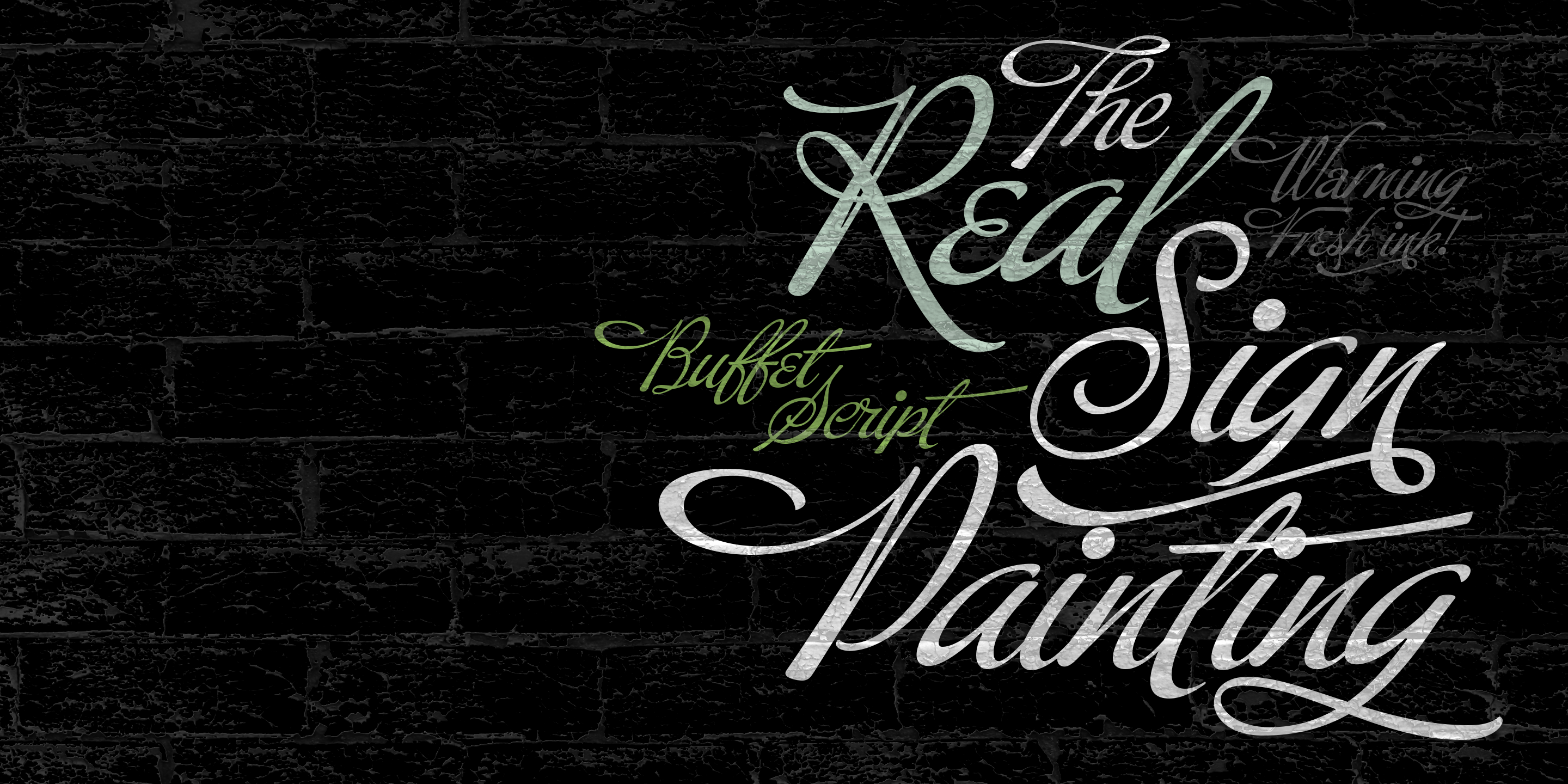
Buffet Script Font is perfect for elegant restaurant branding, gourmet food packaging, upscale catering services, fine dining menus, culinary event promotions, artisan food labels, sophisticated hospitality marketing, and premium dining establishment communications. This refined script typeface excels in applications requiring culinary elegance and gastronomic sophistication that captures the essence of fine dining experiences and gourmet food culture through graceful handwritten character.
What makes Buffet Script Font exciting is its sophisticated culinary charm that perfectly captures the elegance of fine dining and gourmet experiences through beautifully flowing letterforms. The font features graceful script construction with culinary refinement and elegant curves that instantly evokes feelings of sophistication, quality, and gastronomic excellence perfect for brands celebrating culinary artistry and fine dining traditions.
The Buffet Script Font family includes elegant script variations and decorative flourishes with culinary-inspired styling elements, offering designers comprehensive tools for creating sophisticated dining compositions. The family provides consistent gastronomic aesthetic with varying elegance levels for versatile culinary communications and fine dining branding projects requiring genuine culinary character and sophisticated restaurant appeal.
The gracefully crafted letterforms of Buffet Script Font ensure excellent readability while maximizing culinary charm and gastronomic elegance, making it ideal for restaurant menus, gourmet packaging, and fine dining marketing materials. This sophisticated typeface combines culinary heritage with contemporary technical standards for outstanding performance in modern design environments requiring authentic culinary character and elegant dining presence.